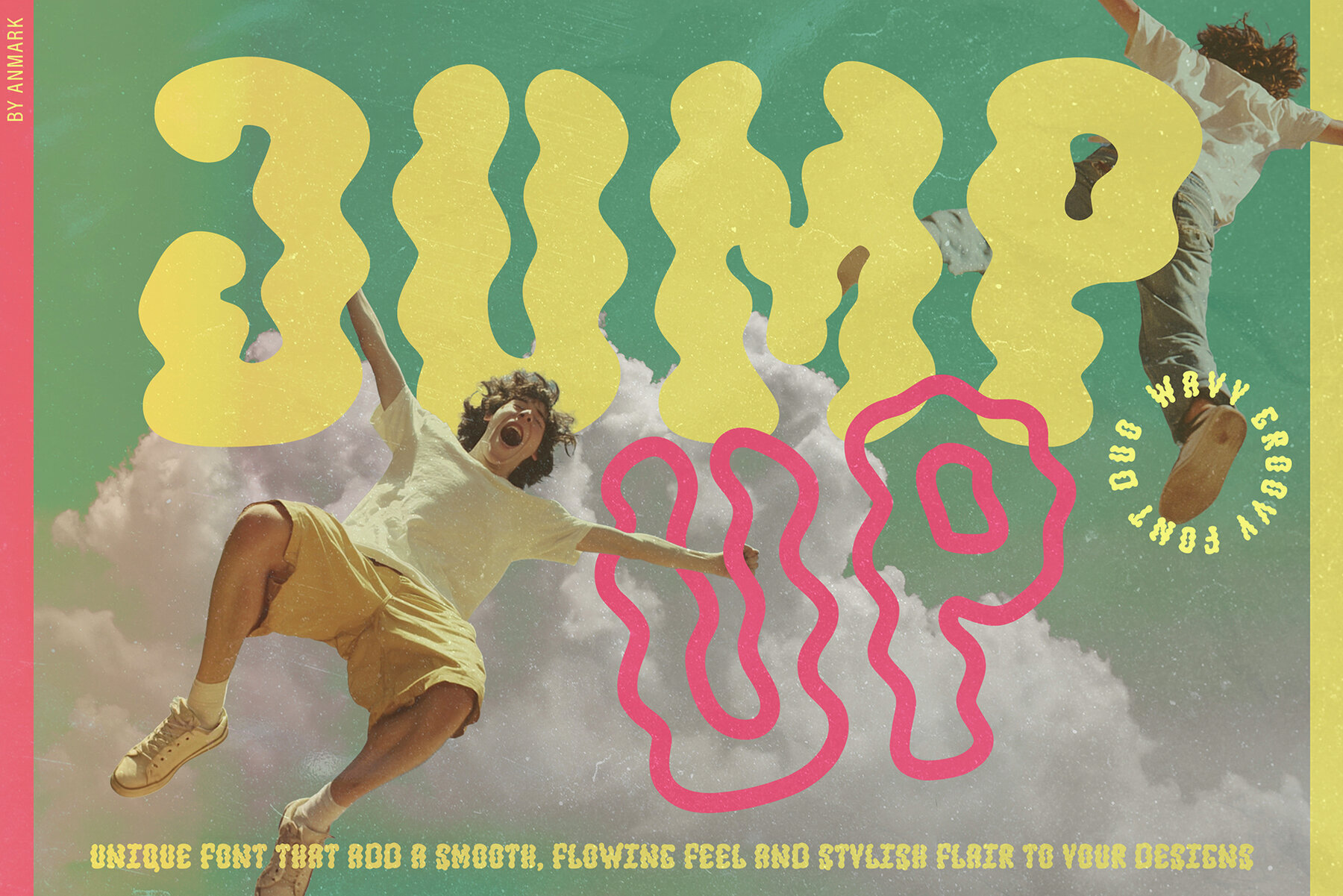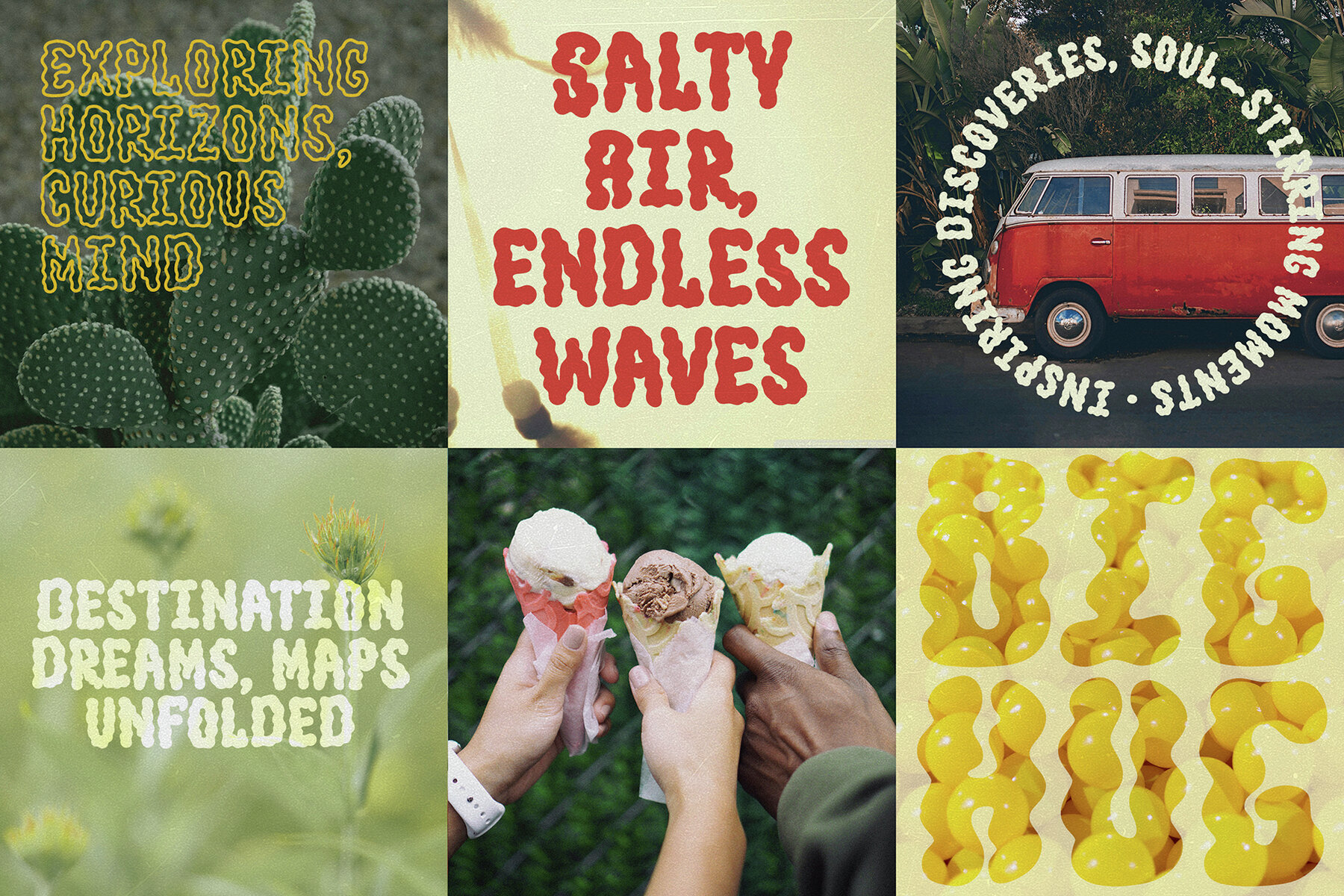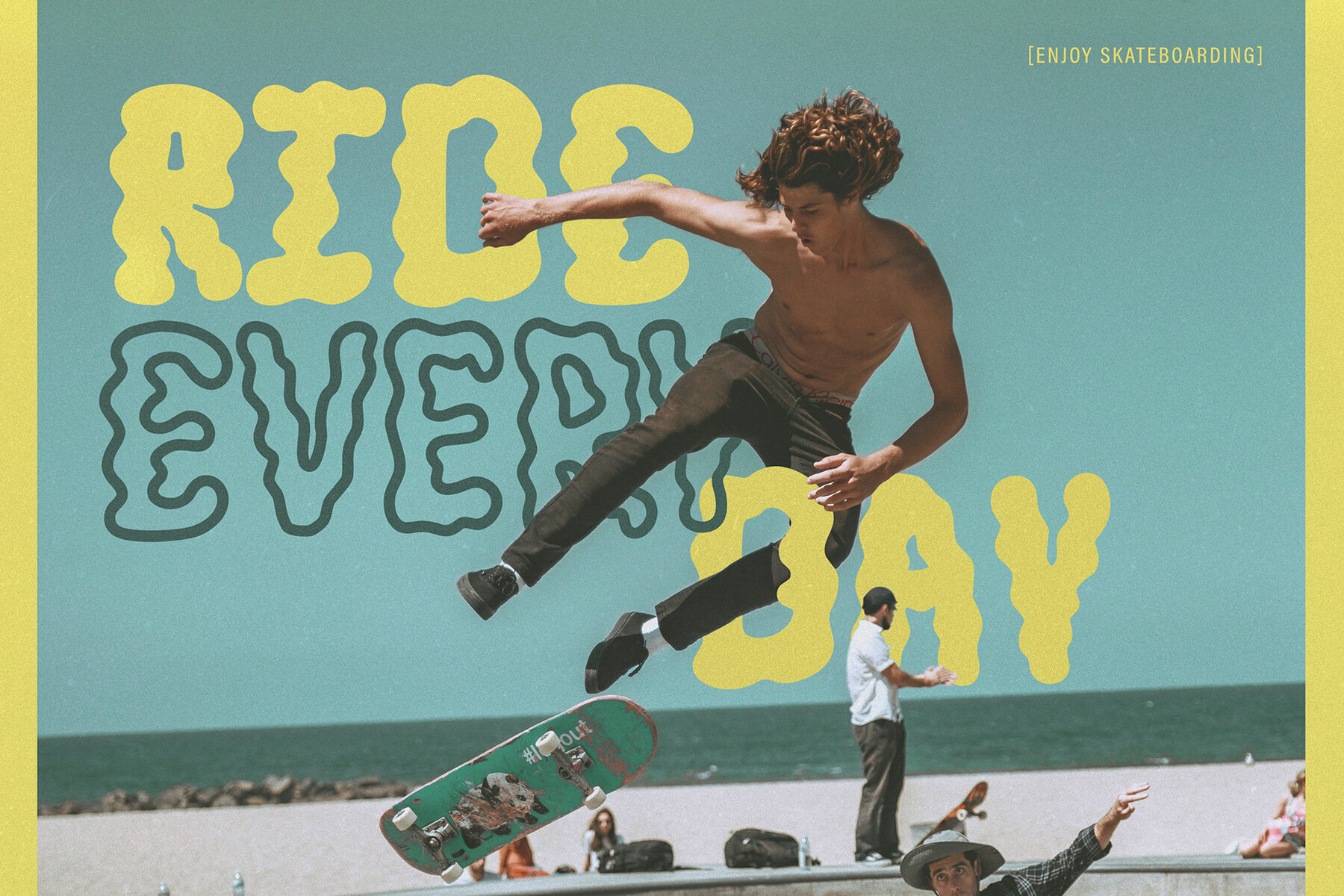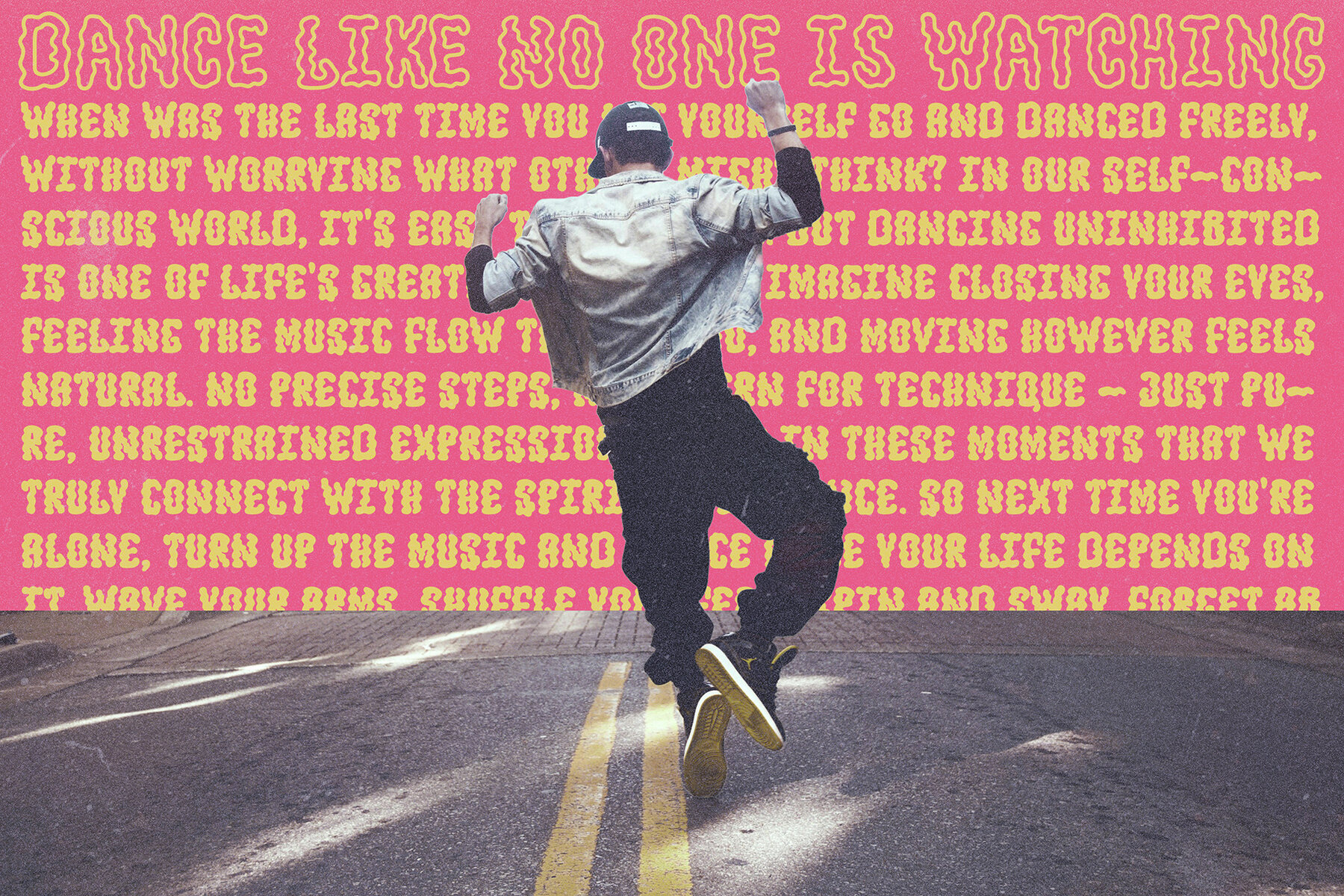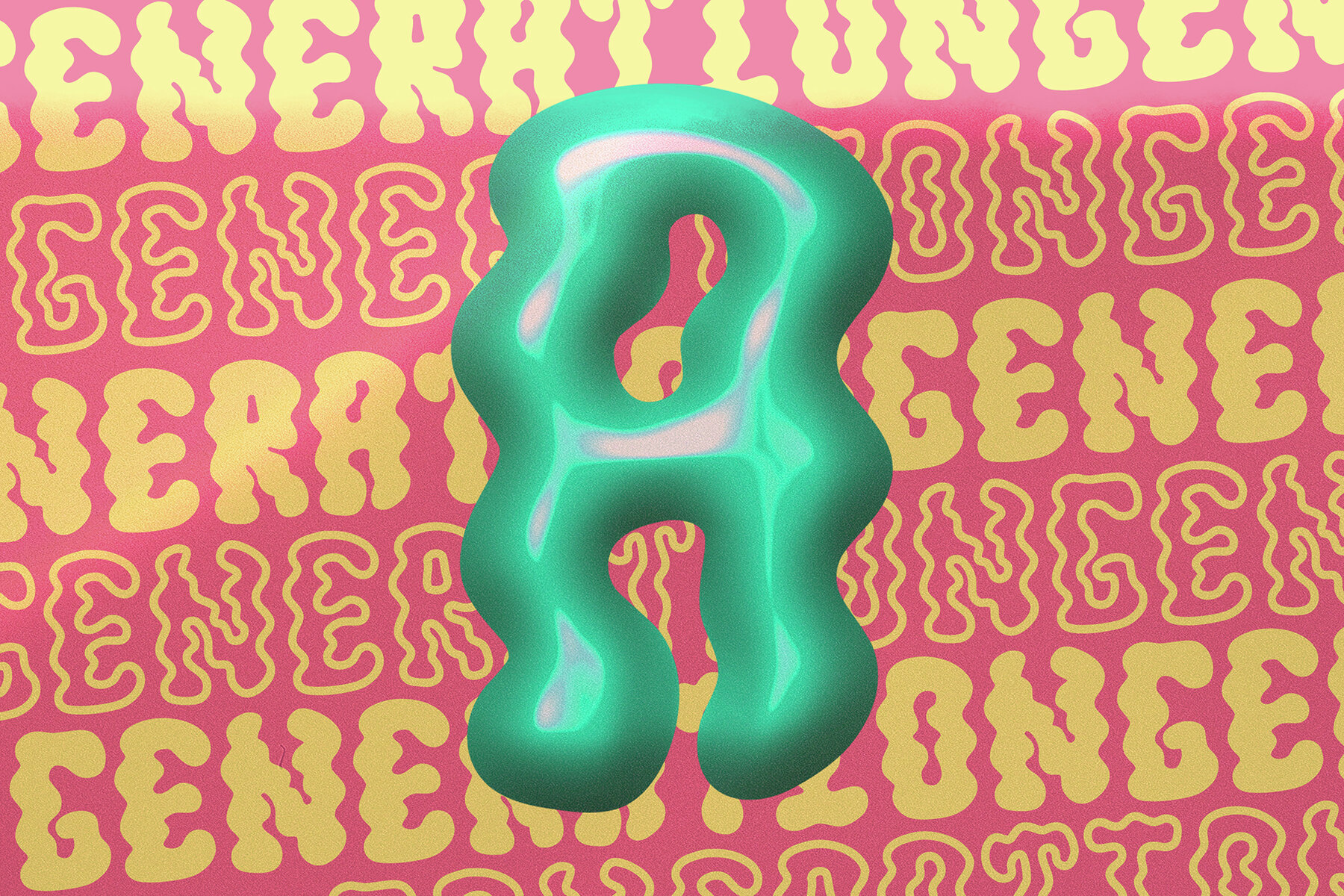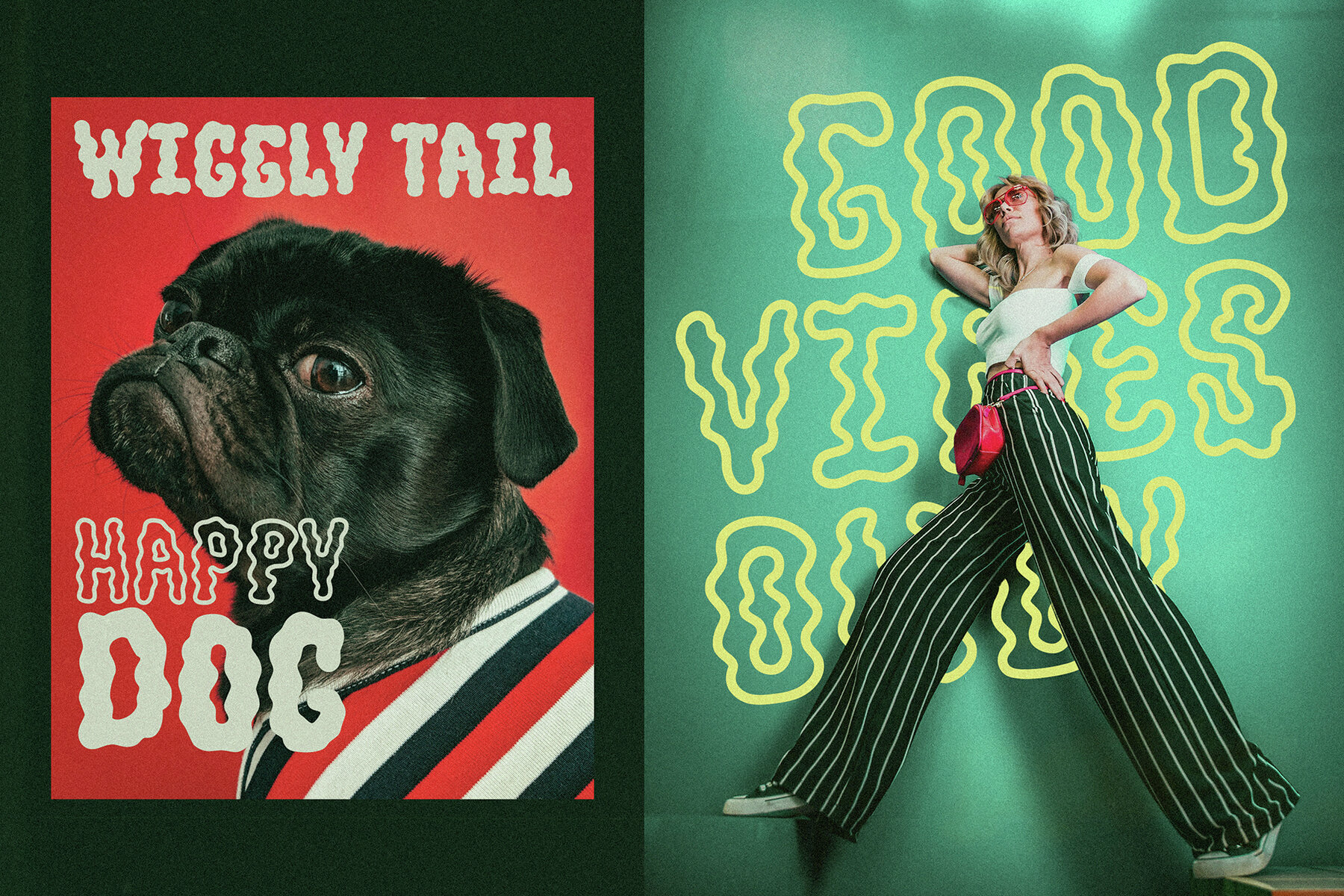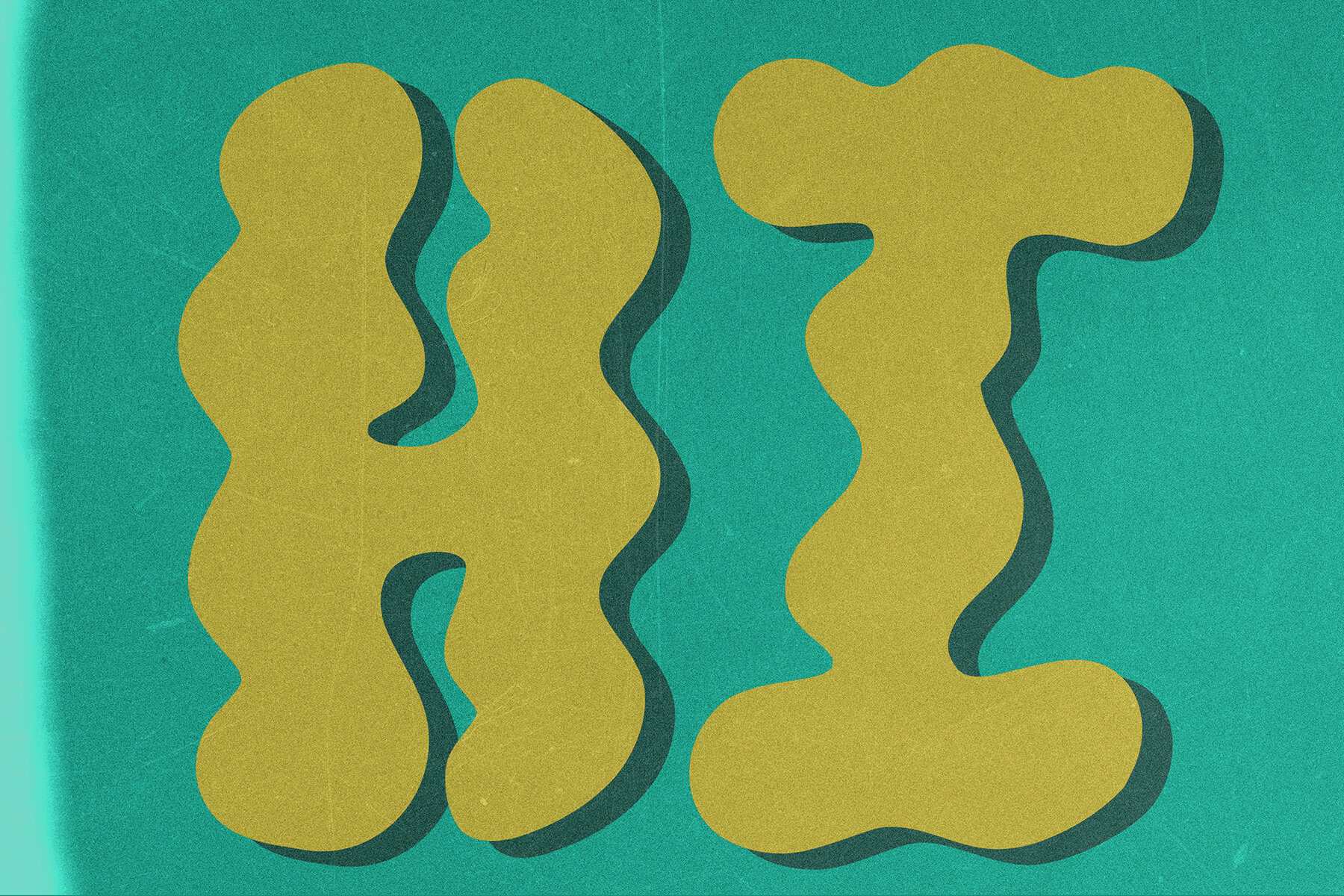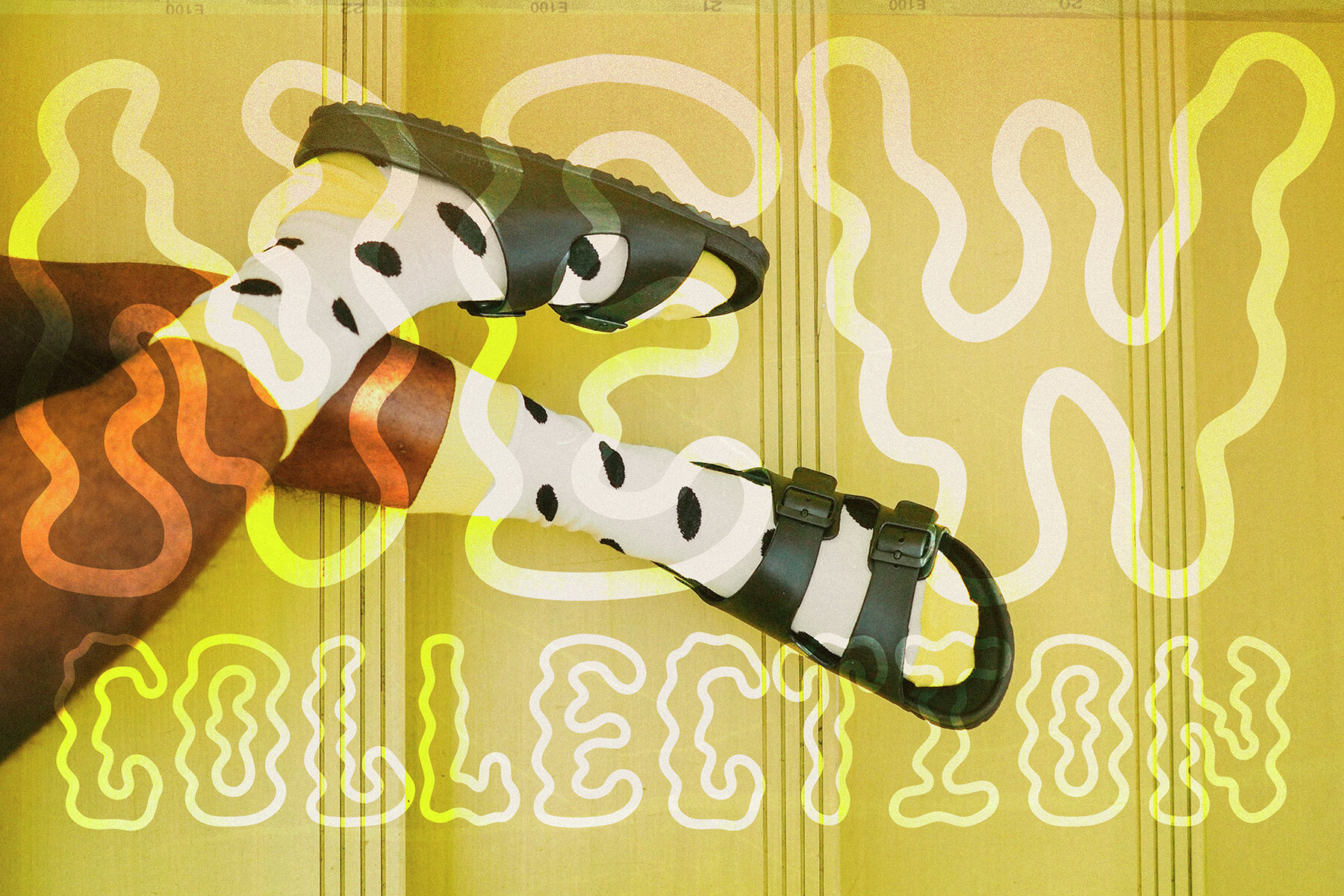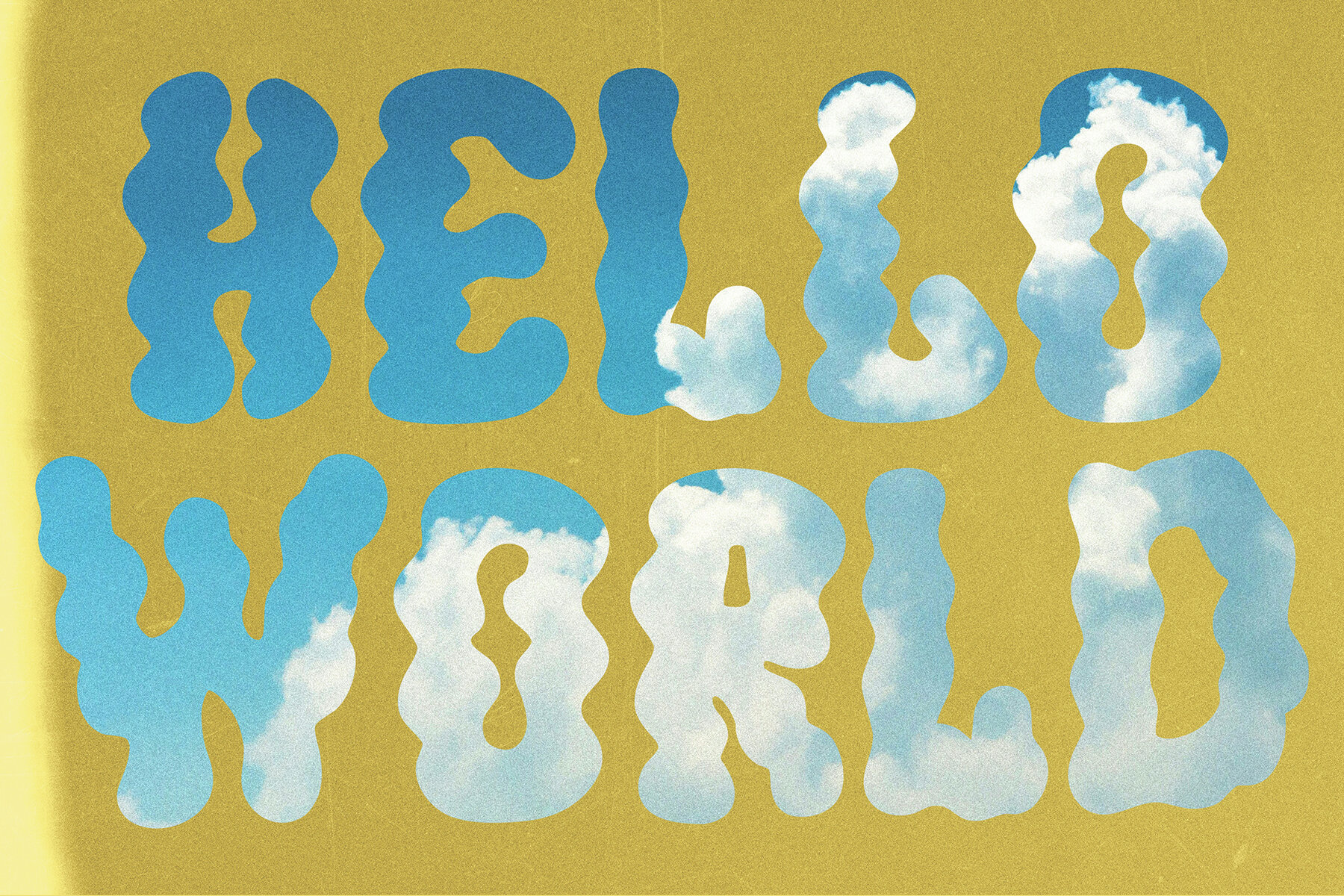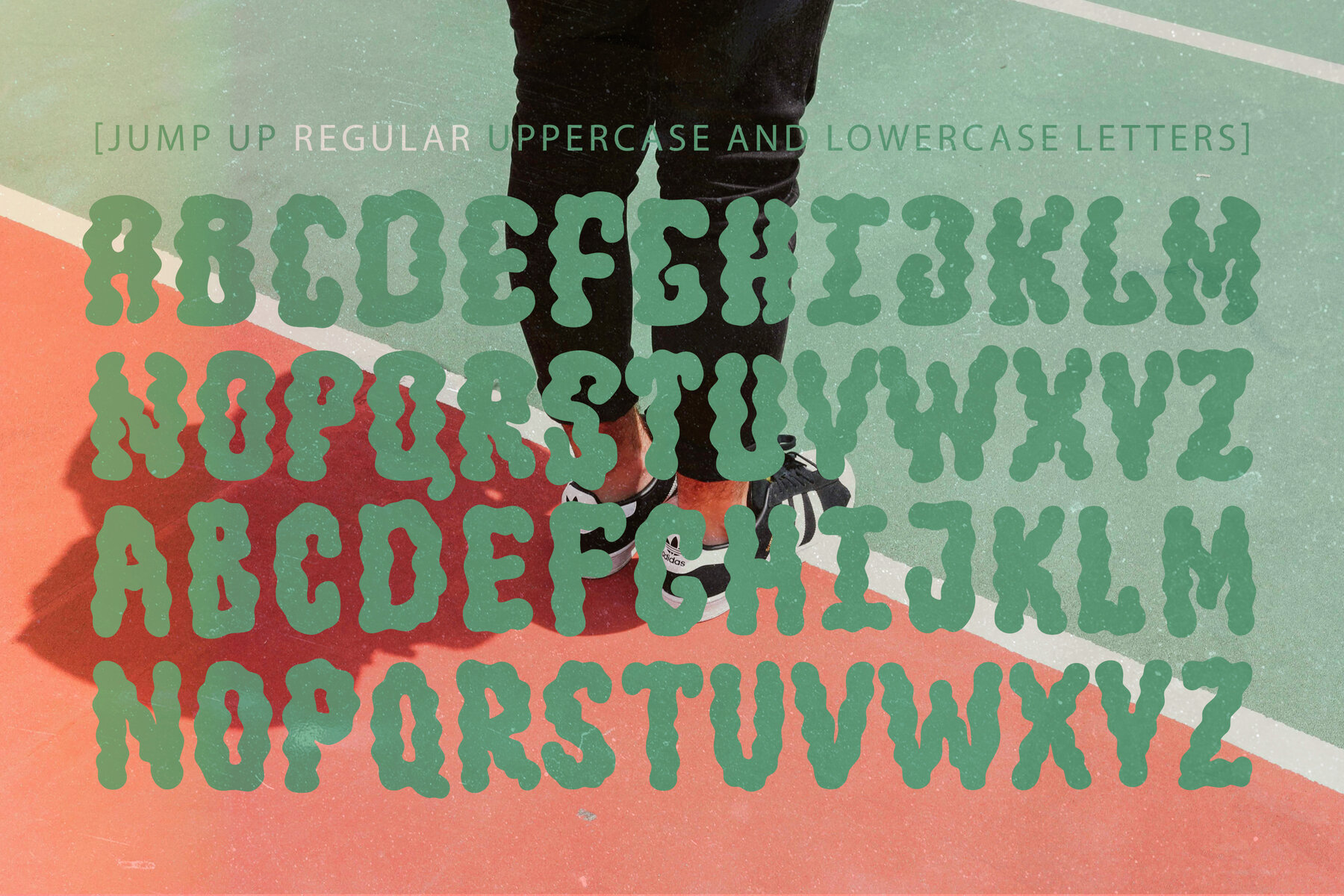
Jump Up Font
Jump Up
Jump Up Outline
Jump Up is a lively, retro-inspired font featuring fun, bouncy energy with undulating letterforms that create a sense of kinetic movement. This design-friendly typeface adds a groove to any project, making it perfect for logotypes, stickers, packaging, Cricut projects, headlines, and brand identity. The font provides extensive language support, including English and European Latin-based languages like French, Italian, Spanish, Portuguese, German, Swedish, Norwegian, Danish, and Finnish.
Ideal for a wide array of creative applications, Jump Up excels in enhancing t-shirts, posters, magazines, books, YouTube channels, Instagram profiles, websites, and more. With its vibrant and playful script, this font effortlessly invigorates your designs with a dynamic, retro vibe, making it an excellent choice for designers looking to infuse their projects with energetic flair.